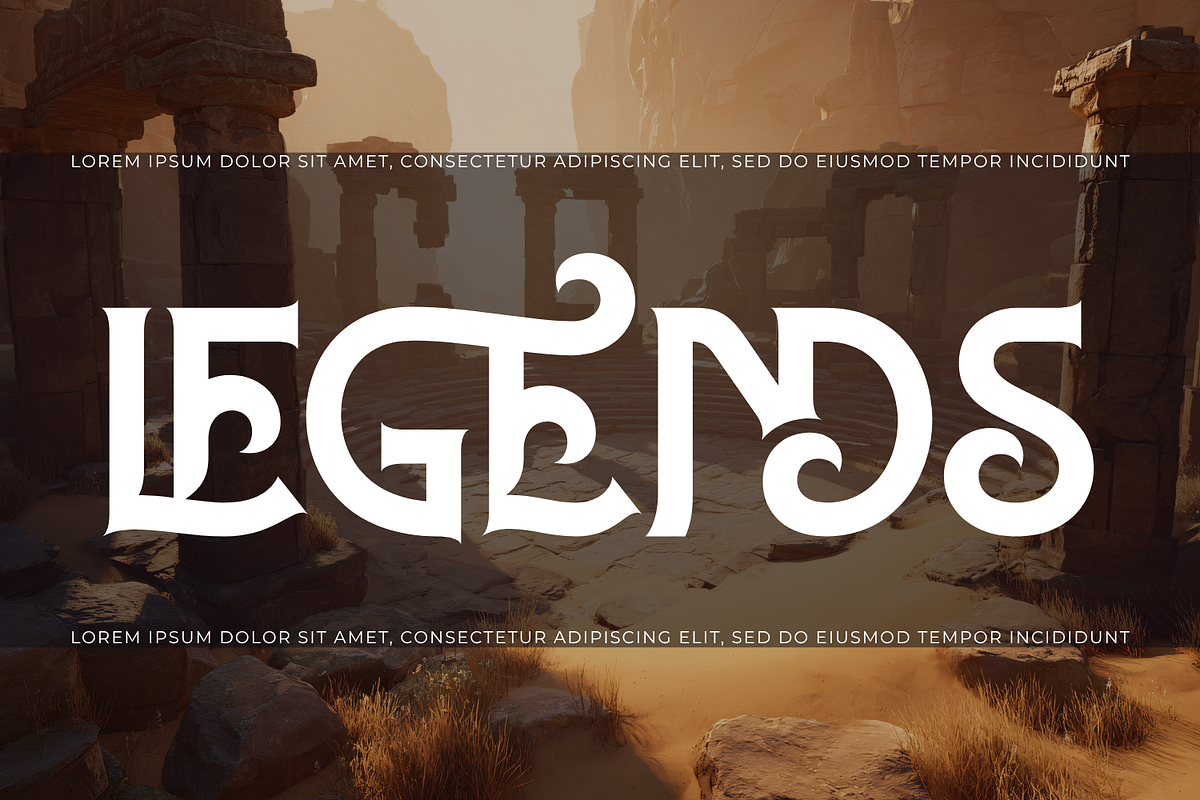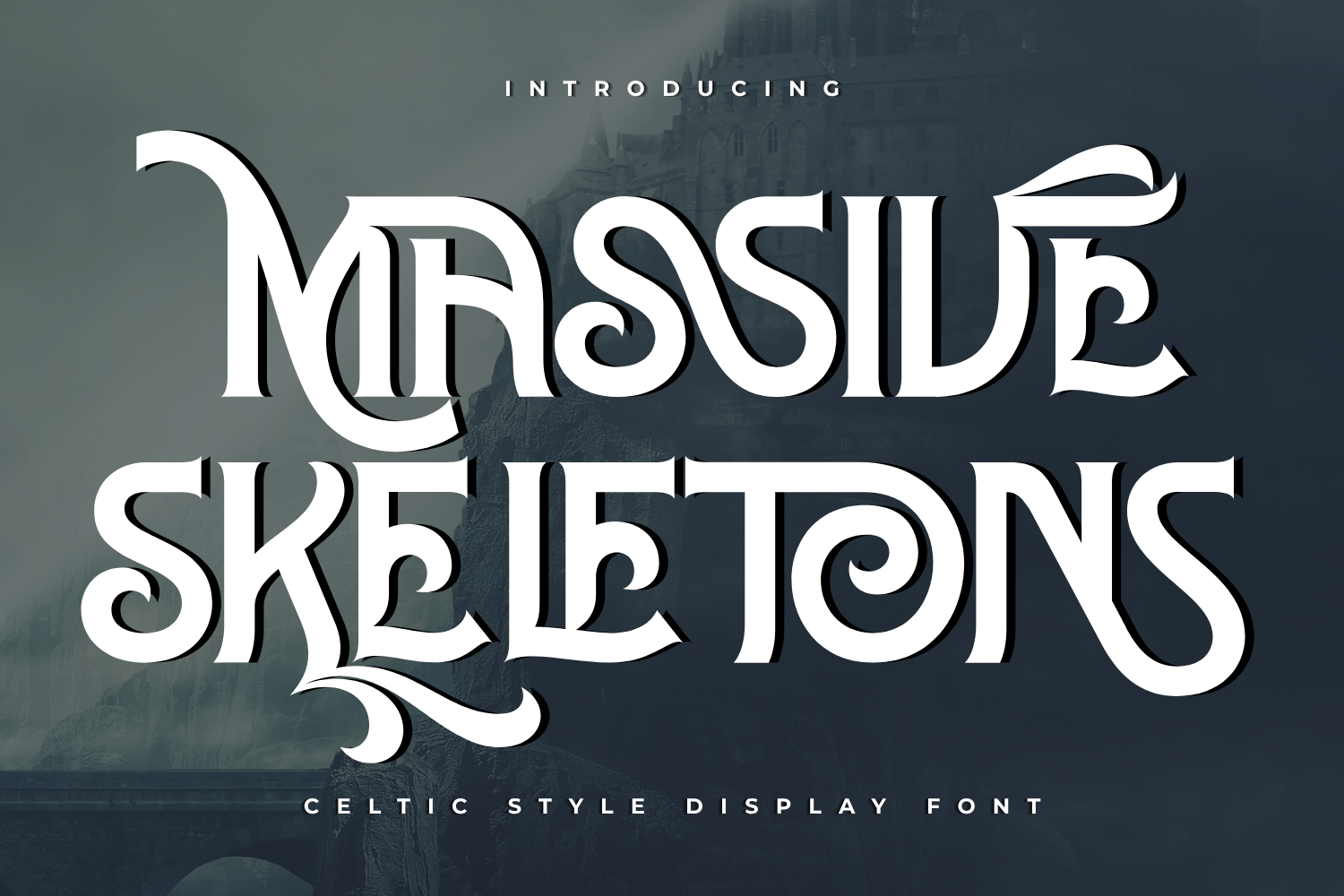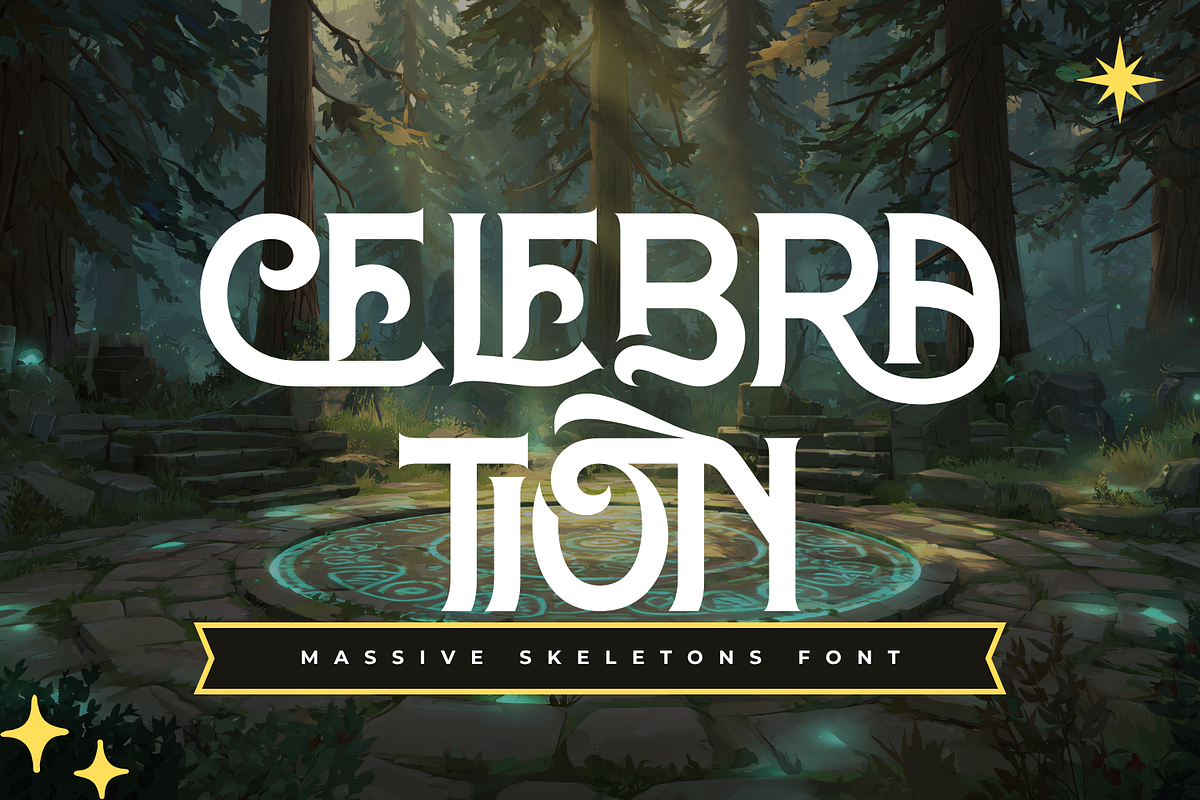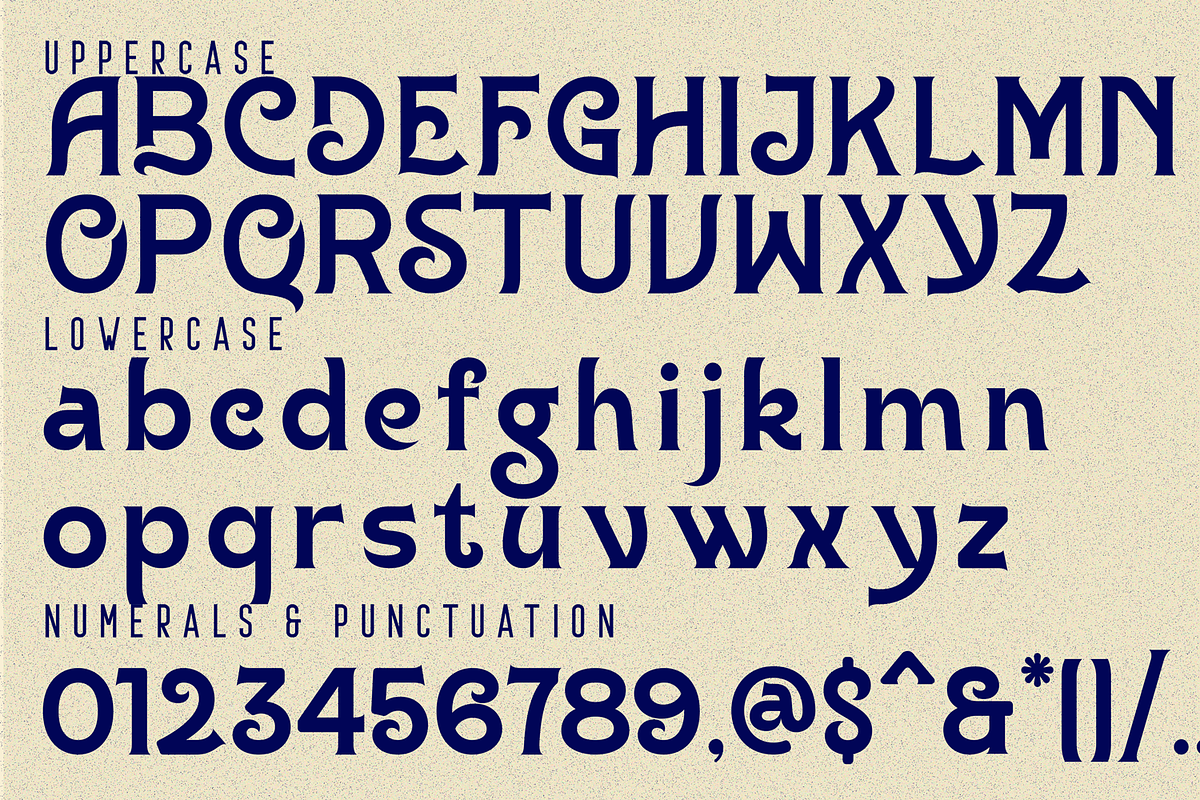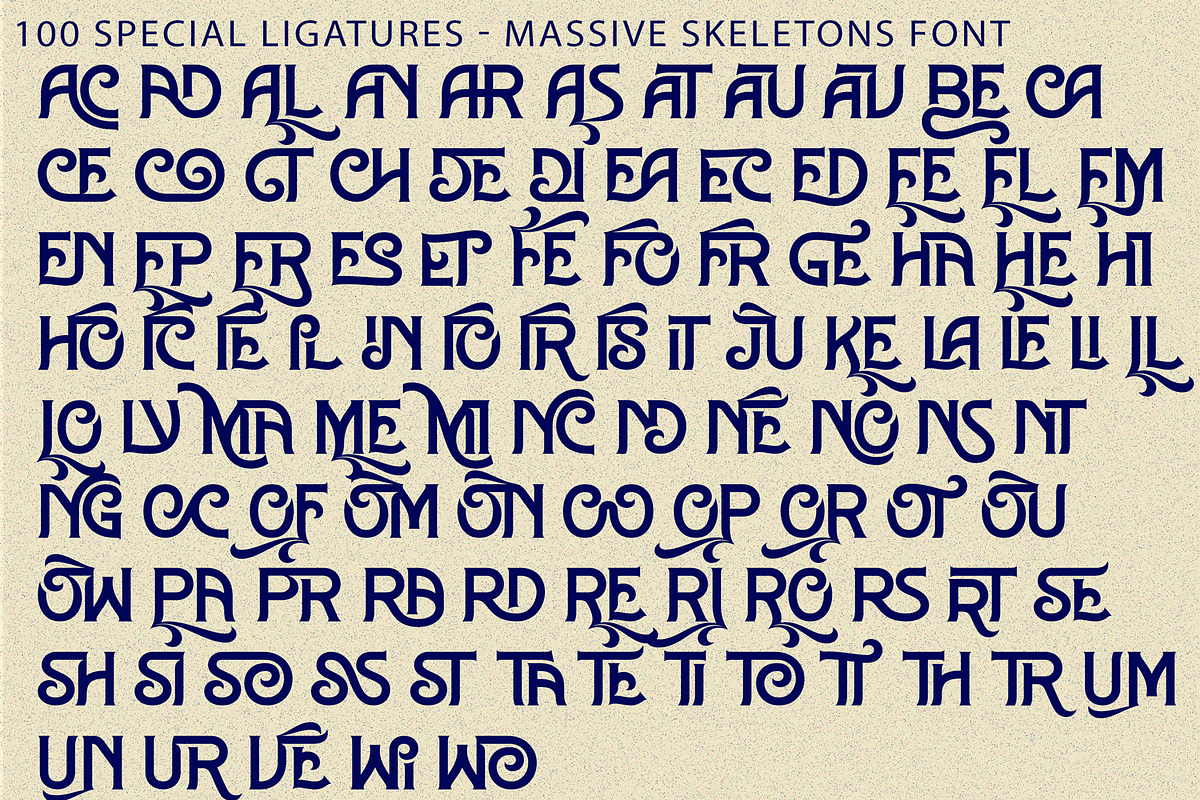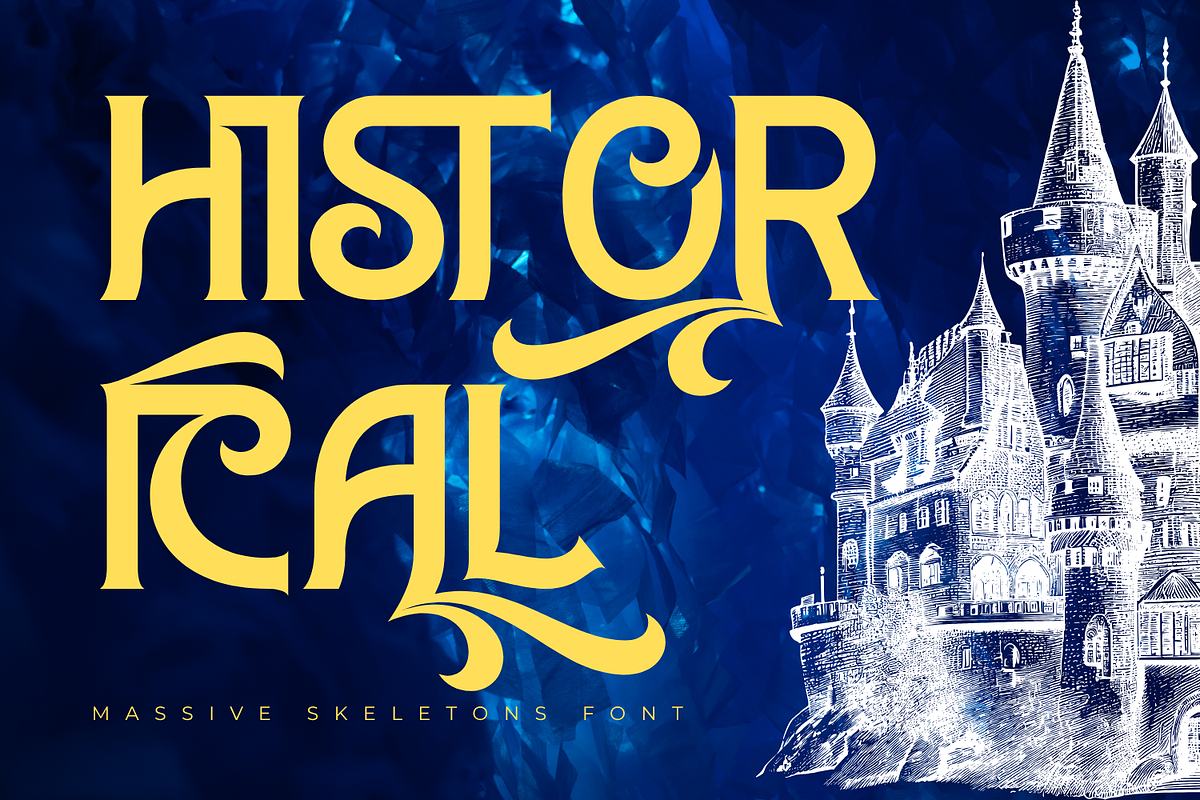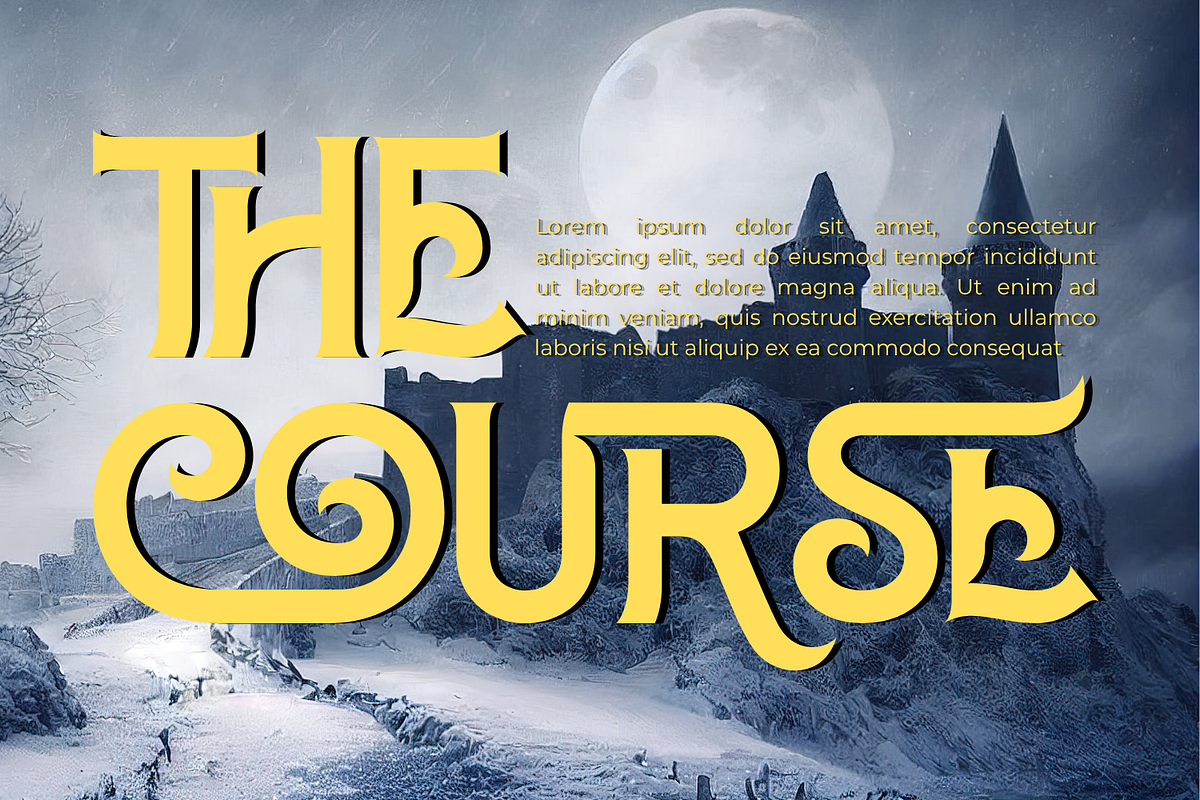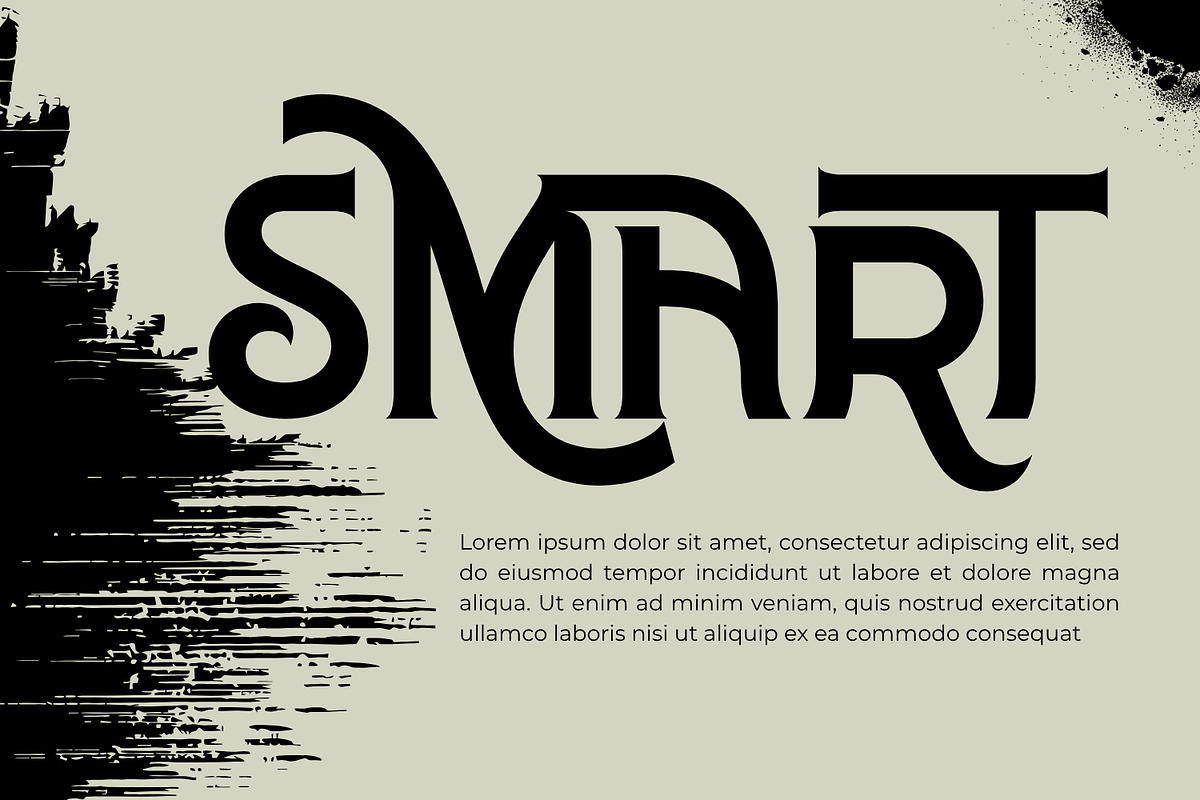
MASSIVE SKELETONS - VINTAGE FONT
MASSIVE SKELETONS - VINTAGE FONT is a bold vintage Blackletter display font that blends medieval elegance with modern craftsmanship. Inspired by classic Gothic lettering and Old English typography, this typeface features strong serif forms, dramatic curves, and beautifully ornamented swashes that create a rich and unforgettable visual identity. Every character is carefully crafted with decorative terminals, flowing flourishes, and expressive details, giving MASSIVE SKELETONS a timeless personality that feels both historic and luxurious. Its balanced combination of bold structure and refined ornamentation makes it ideal for projects that demand elegance, character, and authenticity.
Perfect for fantasy branding, medieval-themed artwork, book covers, game titles, tattoo designs, craft labels, whiskey packaging, gothic logos, vintage posters, music artwork, and premium branding, MASSIVE SKELETONS delivers a striking blend of heritage and sophistication. Whether used for dramatic headlines or distinctive logos, this typeface brings an iconic medieval charm with a refined contemporary finish.
🔤Features:
Uppercase & Lowercase Letters
Around 100 Special Ligatures & Alternates
Accented Characters for multilingual support
🔤About 100 ligatures combined with Stylistic Alternates Font:
AC AD AL AN AR AS AT AU AV BE CA CE CH CO CT DE DI EA EC ED EE EL EM EN EP ER ES ET FE FO FR GE HA HE HI HO IE IC IL IN IO IR IS IT JU KE LA LE LI LL LO LY MA ME MI NC ND NE NG NO NT NS OC OF OM ON OO OP OR OT OU OW PA PR RA RD RE RI RO RS RT SE SH SI SO SS ST TA TE TH TI TO TR TT UM UN UR VE WI WO